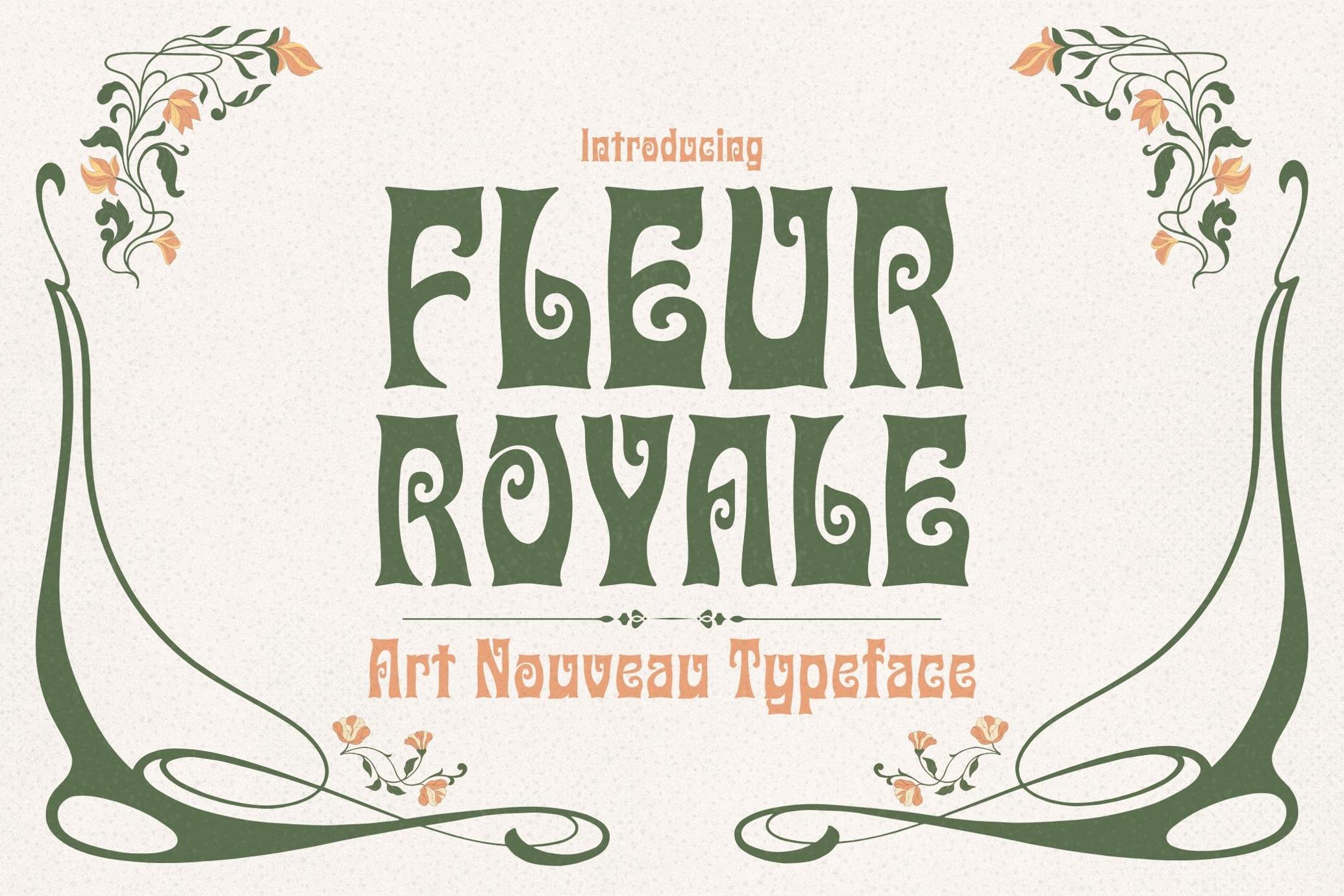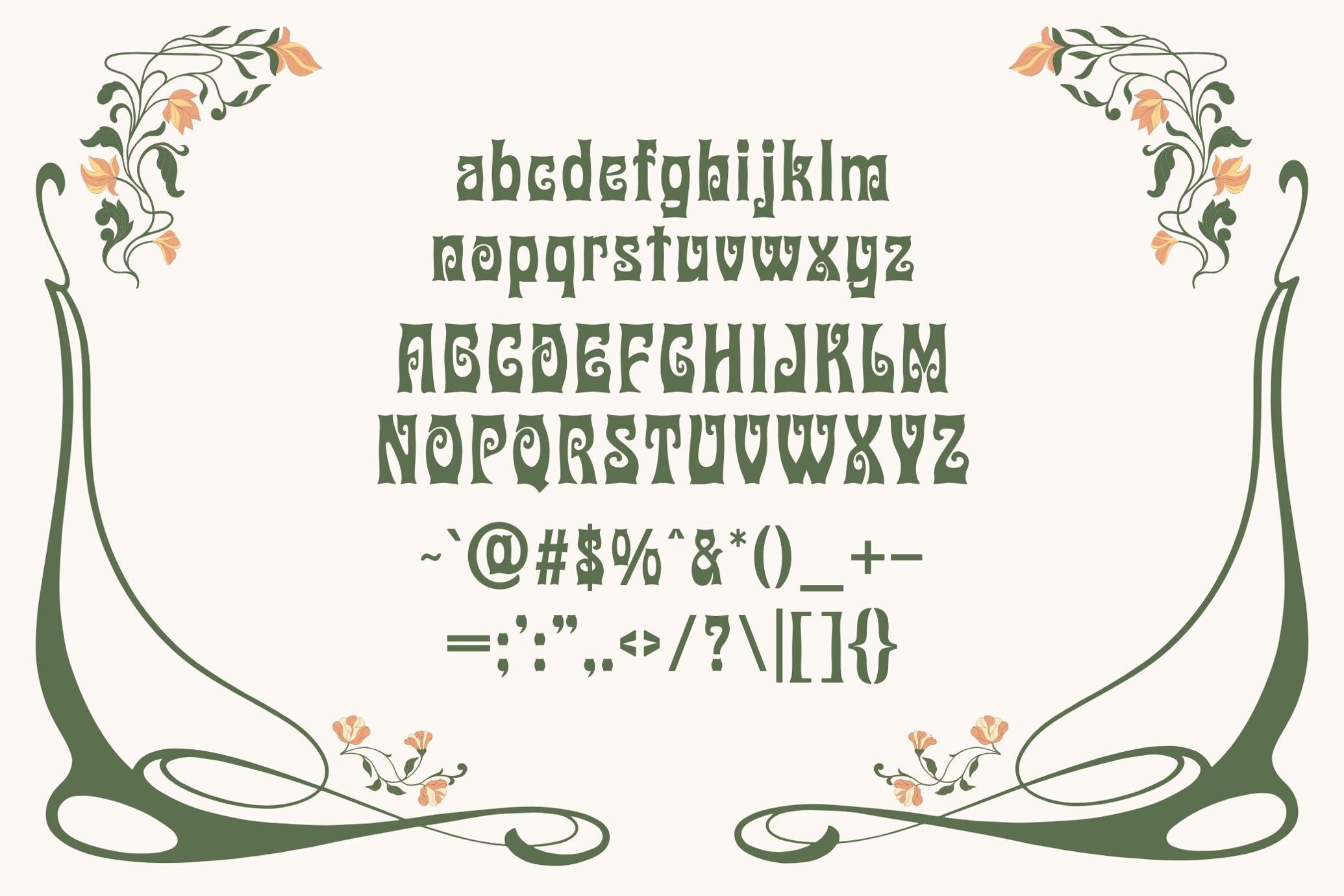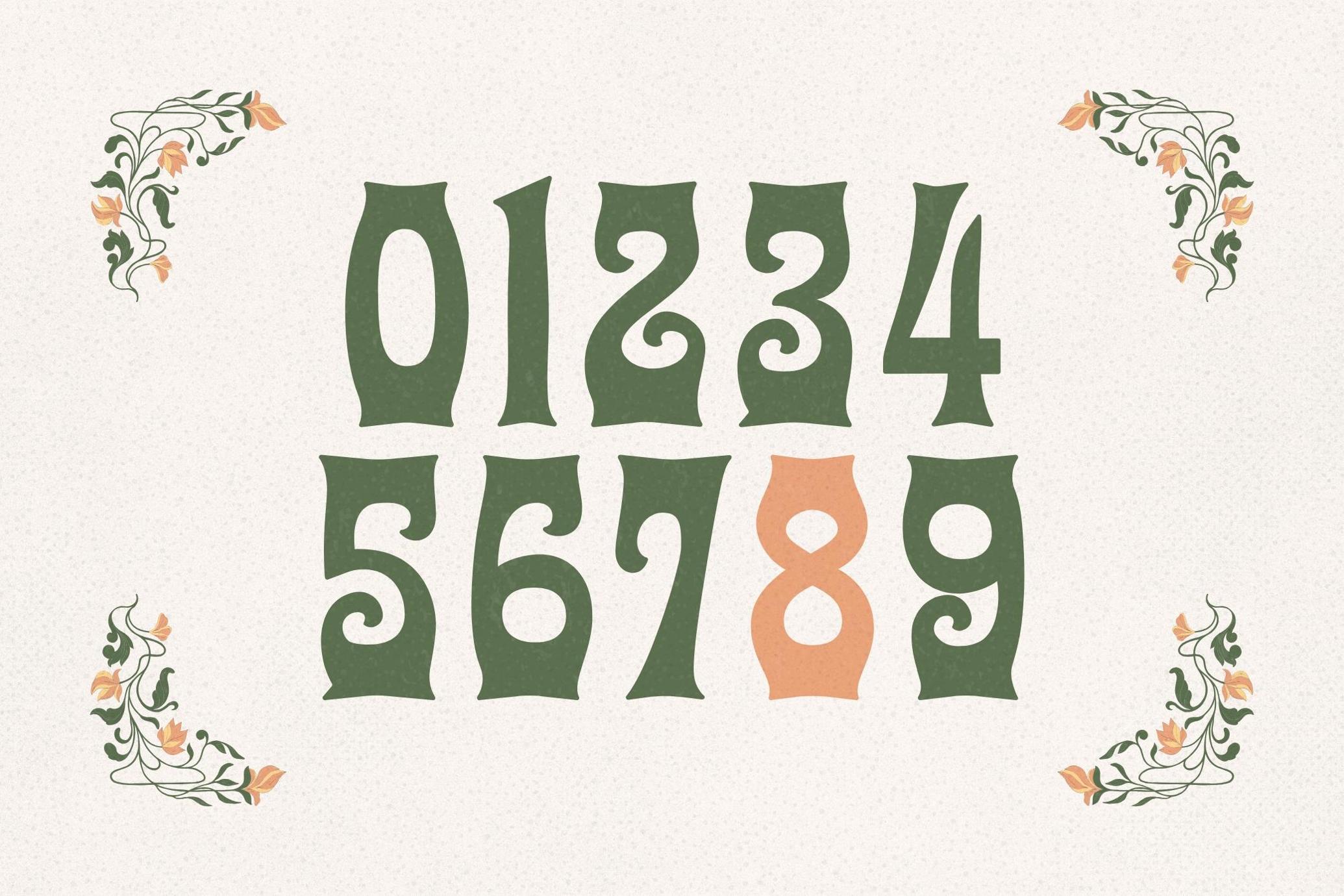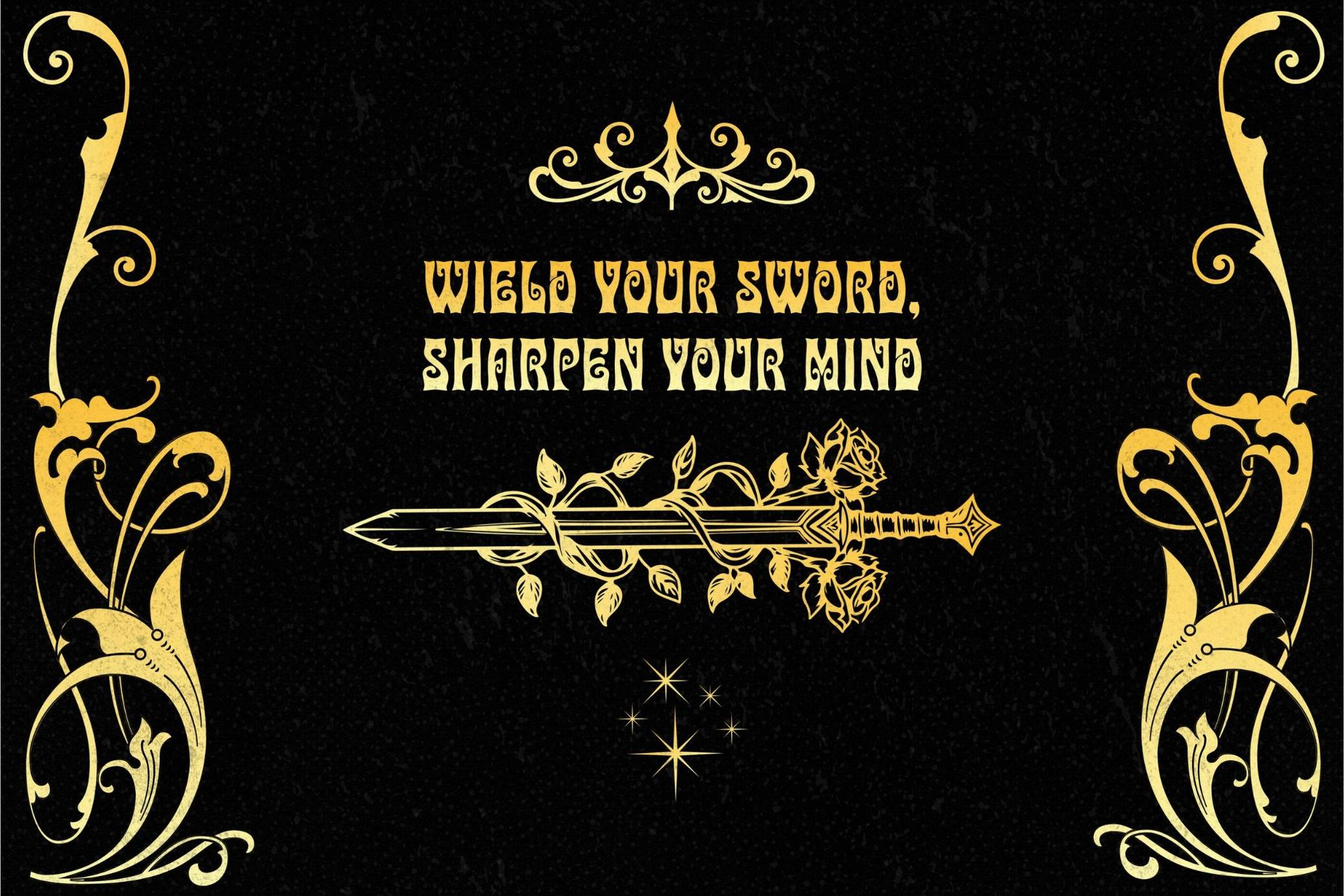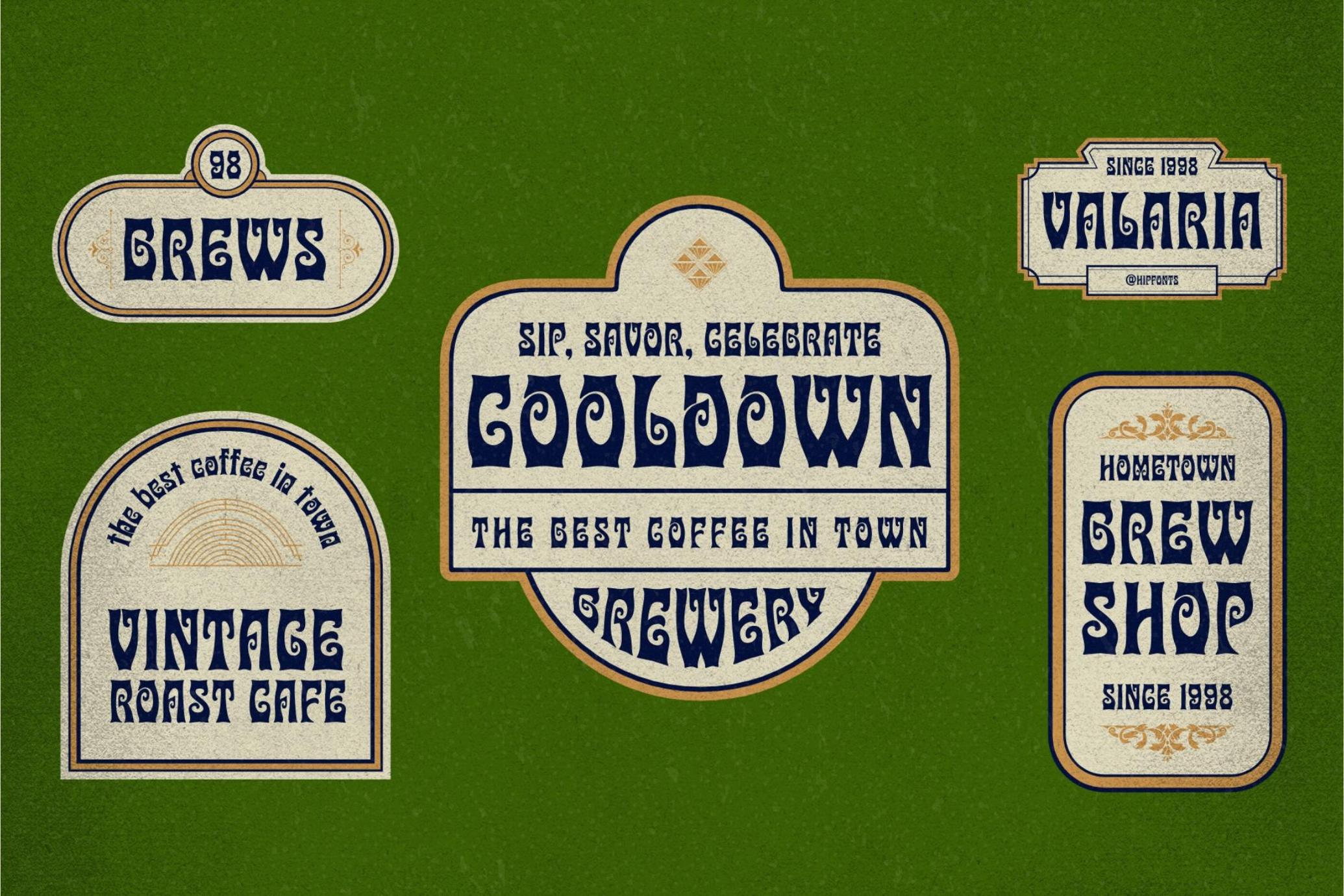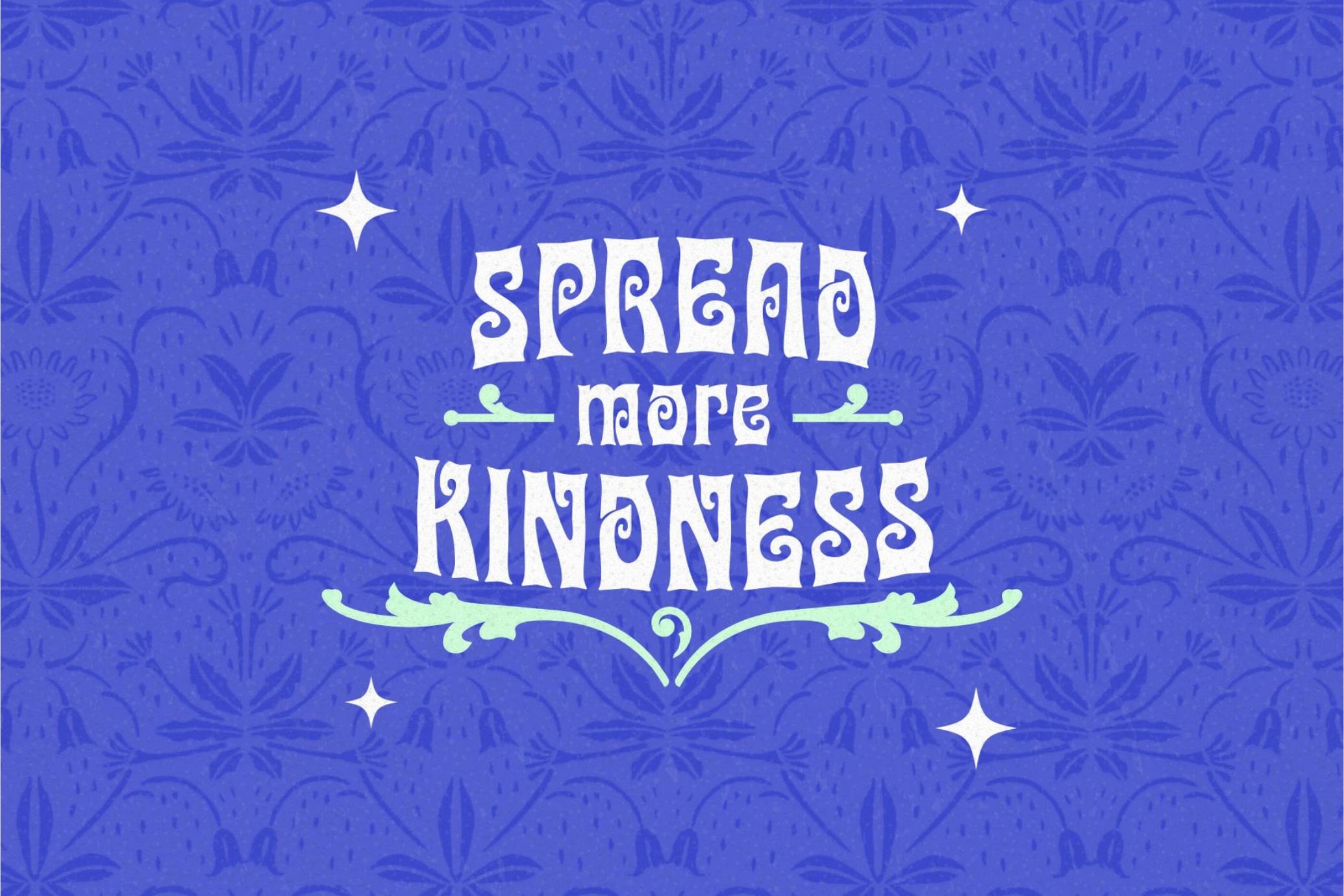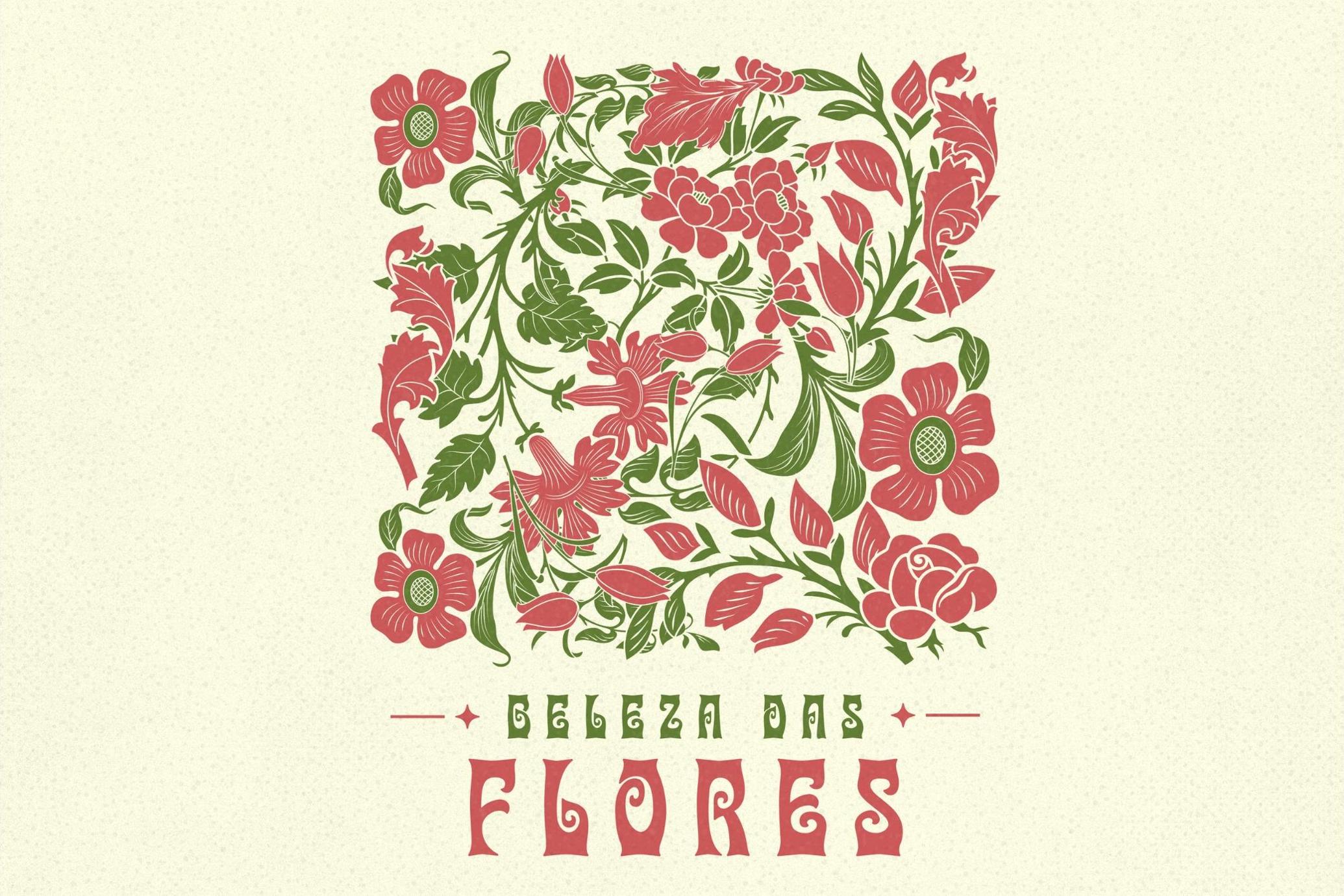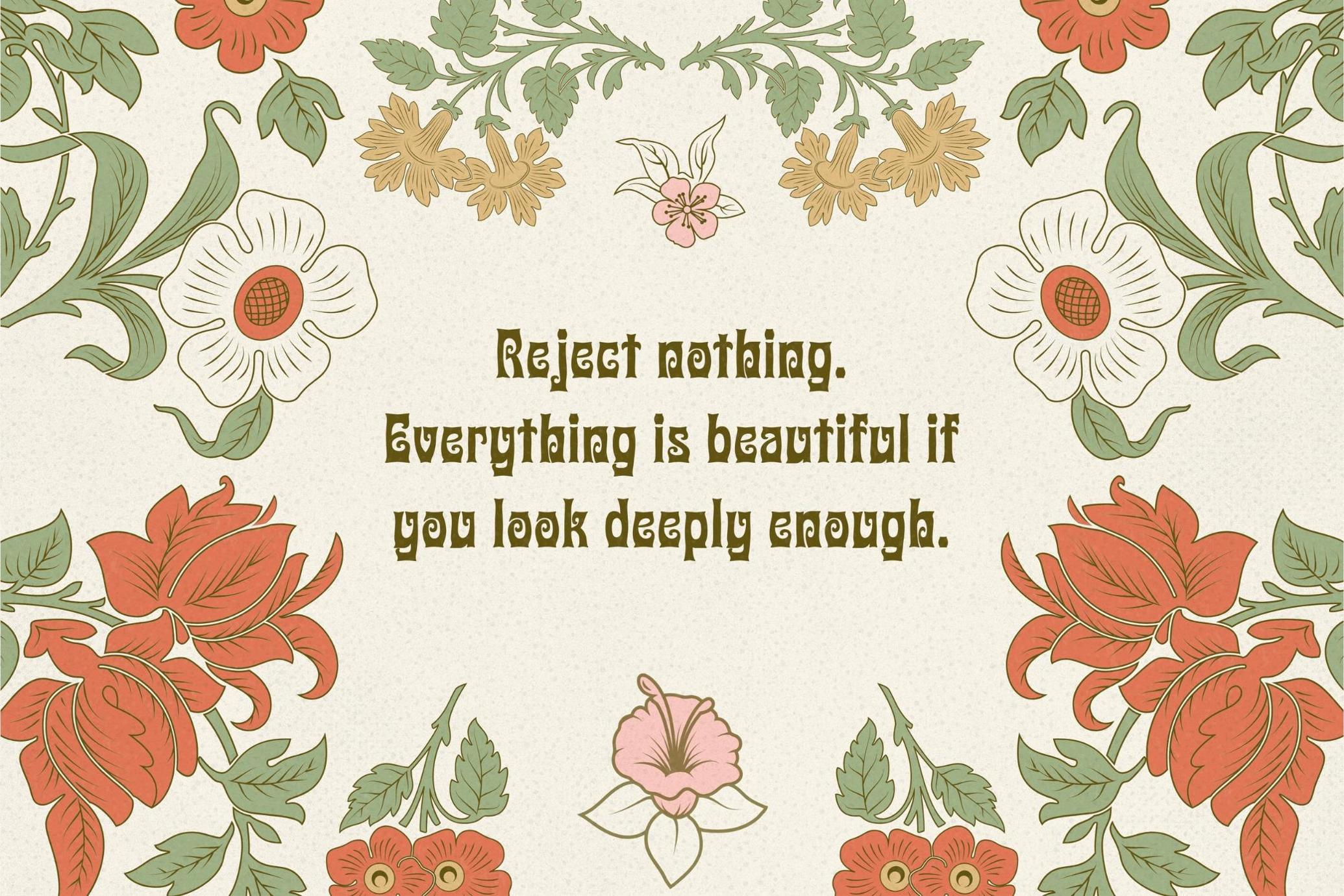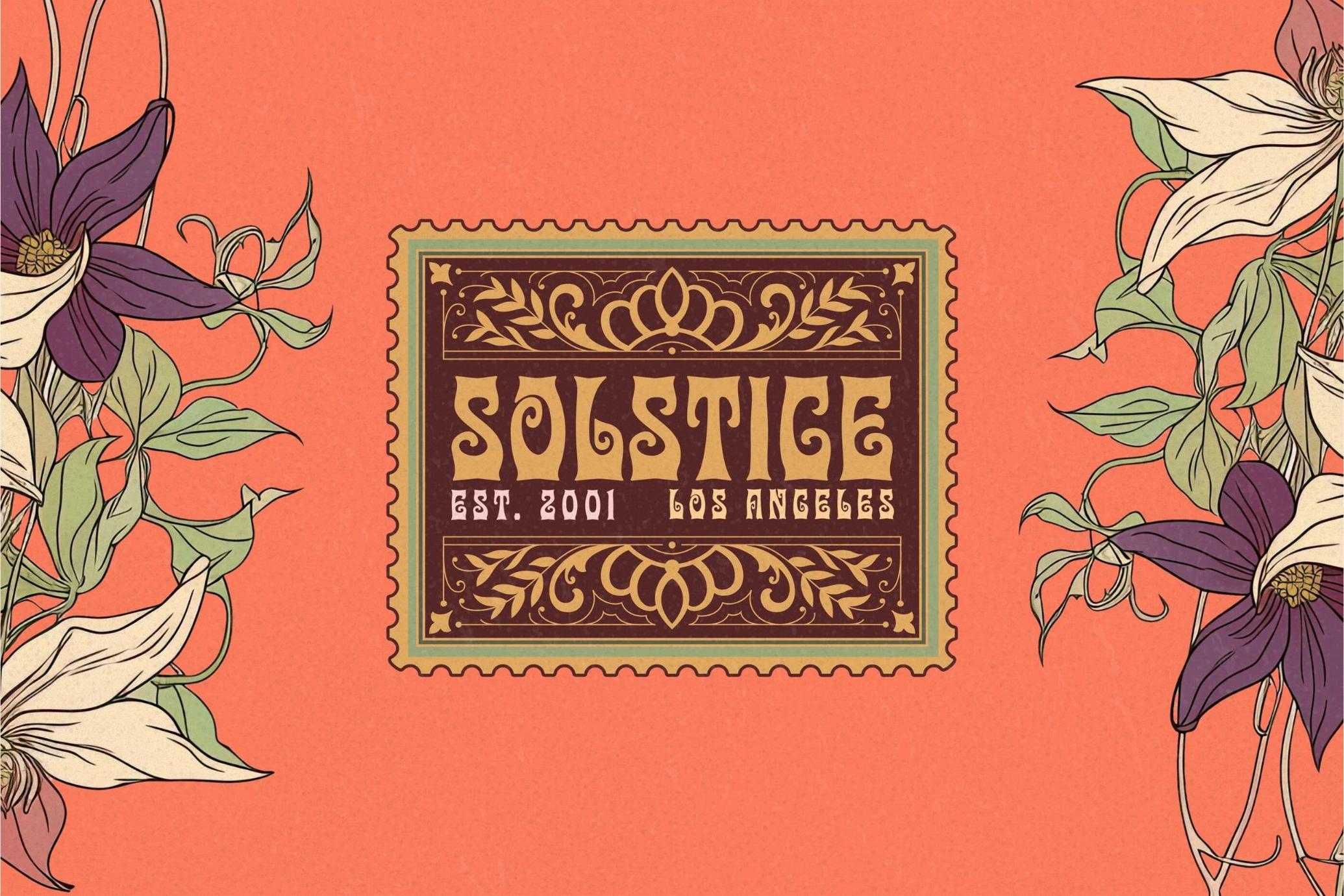
Fleur Royale - Art Nouveau Typeface
Step into a world where art blossoms and time stands still. Fleur Royale is a breathtaking Art Nouveau typeface that captures the graceful spirit of the Belle Époque with stunning authenticity. Inspired by the flowing lines, ornate details, and floral motifs of the late 19th and early 20th centuries, this font is a love letter to a golden age of design.
Every curve, loop, and flourish in Fleur Royale has been meticulously crafted to reflect the romantic and organic beauty that defined the Art Nouveau movement. Yet, despite its historical roots, this typeface possesses a timeless versatility, making it just as striking in contemporary branding, editorial layouts, wedding invitations, packaging, and luxury design.
Using Fleur Royale is like opening a velvet-curtained doorway into another era, one filled with elegance, artistry, and opulent charm. Whether you're crafting vintage-inspired visuals or giving a modern project a touch of nostalgic sophistication, this font delivers drama, grace, and grandeur in equal measure.